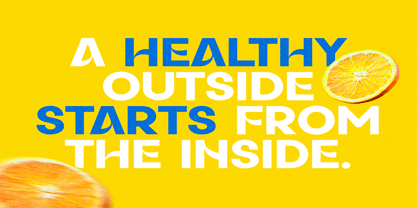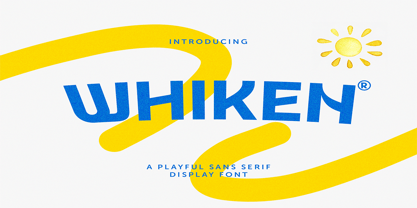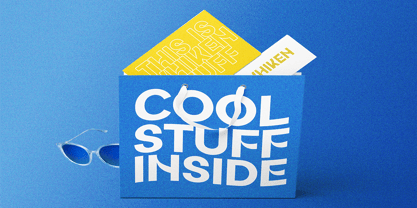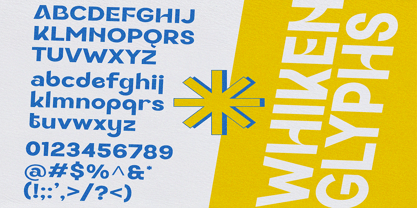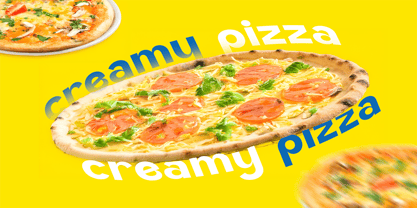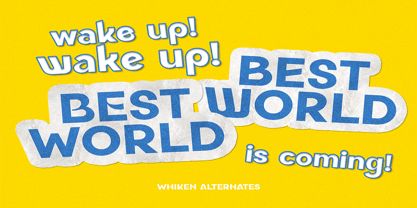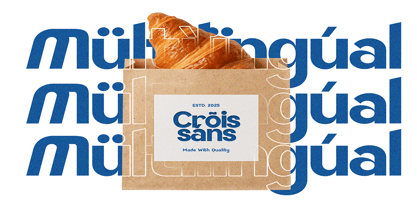
Whiken
by Jaruka Creative
The Whiken Font Family was designed by Edy Subiyanto and published by Jaruka Creative. Whiken contains 1 styles. More about this family
Bring Your Designs to Life with Whiken!
Meet Whiken, the ultimate playful sans-serif display font designed by Jaruka Creative to inject personality, warmth, and boundless energy into your creative projects.
If your design needs to feel fresh, cheerful, and full of life, Whiken is the perfect typographic companion. With its bold, uniquely curved stems, wavy crossbars, and delightfully asymmetric character shapes, this font instantly captures attention while maintaining a clean, modern sans-serif structure.
Why You’ll Love Whiken:
• Distinctly Playful Personality: Whiken features creative, fluid cutouts and wavy alternate glyphs that break away from traditional rigid lines, giving your text an organic, joyful bounce.
• Built for Display: Designed to stand out, it is the perfect choice for headlines, logos, bold packaging, merch, advertising, and social media graphics.
• Versatile Stylistic Alternates: Keep your designs dynamic! Whiken comes equipped with alternate characters so you can mix and match glyphs for a truly customized, hand-lettered look.
• Global Language Support: Speak to the world seamlessly. Whiken includes comprehensive multilingual support, making it fully equipped for international branding and diverse creative markets.
Perfect For:
• Food & Beverage Packaging (Juices, snacks, cafes, bakeries)
• Merchandise & Apparel (Shopping bags, t-shirts, summer gear)
• Children’s & Lifestyle Brands (Books, posters, toys)
• Eye-Catching Advertising (Billboards, web banners, social media campaigns)
Wake up your creativity! Whether you are wrapping up a box of "Cool Stuff" or shouting about the "Best World," Whiken delivers your message with an unmistakable smile.
Designers: Edy Subiyanto
Foundry: Jaruka Creative